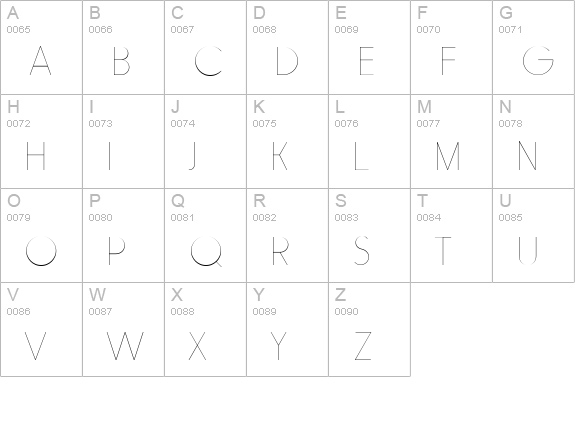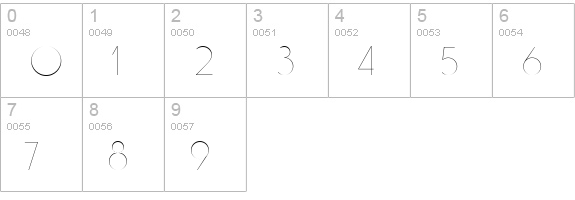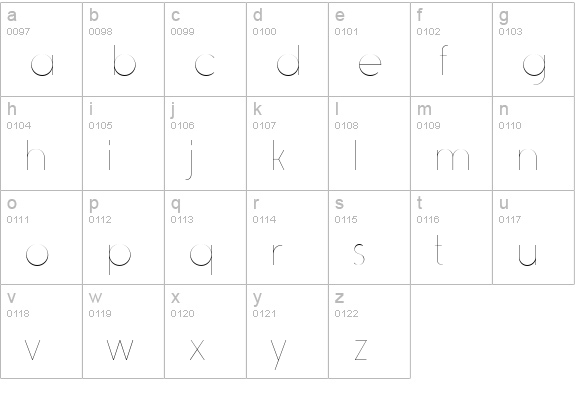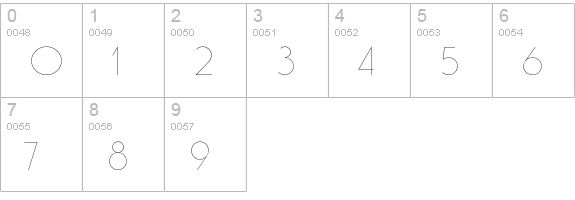
Rimouski UltraLight Font Details
Rimouski UltraLight is an airy, ultra-refined variant in the Rimouski typeface family \xE2\x80\x94 well suited to minimalist headlines and refined display use.
Rimouski UltraLight font exudes elegance and sophistication with its delicate and slender letterforms. This ultra-light typeface is perfect for adding a touch of modernity and refinement to any design project. Its minimalistic yet stylish design makes it versatile for various applications, from branding to editorial design. The beauty of Rimouski UltraLight font lies in its simplicity and airy appearance, making it a popular choice for designers looking to create a sleek and contemporary look. Whether used for headlines, body text, or logos, this font effortlessly conveys a sense of sophistication and refinement. Best of all, Rimouski UltraLight font is completely free to download at FontsMarket.com. With just a few clicks, you can enhance your designs with this exquisite typeface without breaking the bank. Don't miss out on the opportunity to elevate your projects with the timeless elegance of Rimouski UltraLight font. Download it today and let your creativity soar!